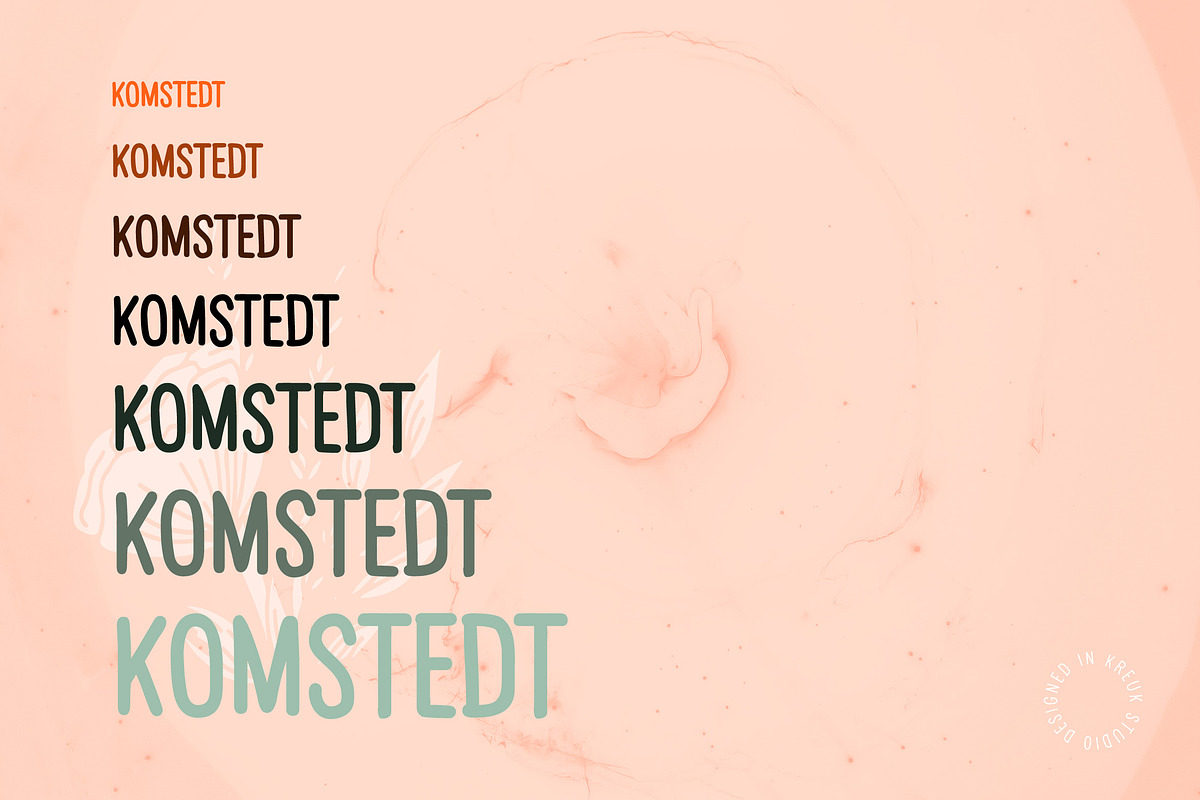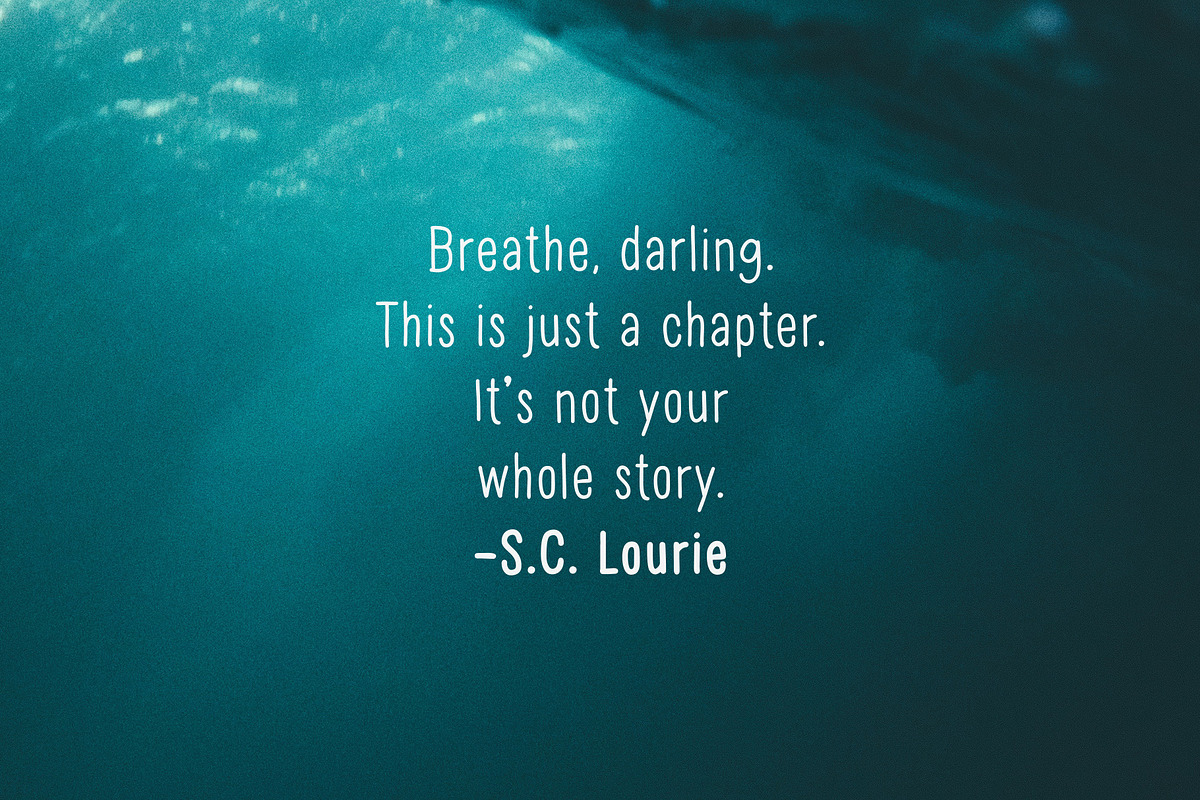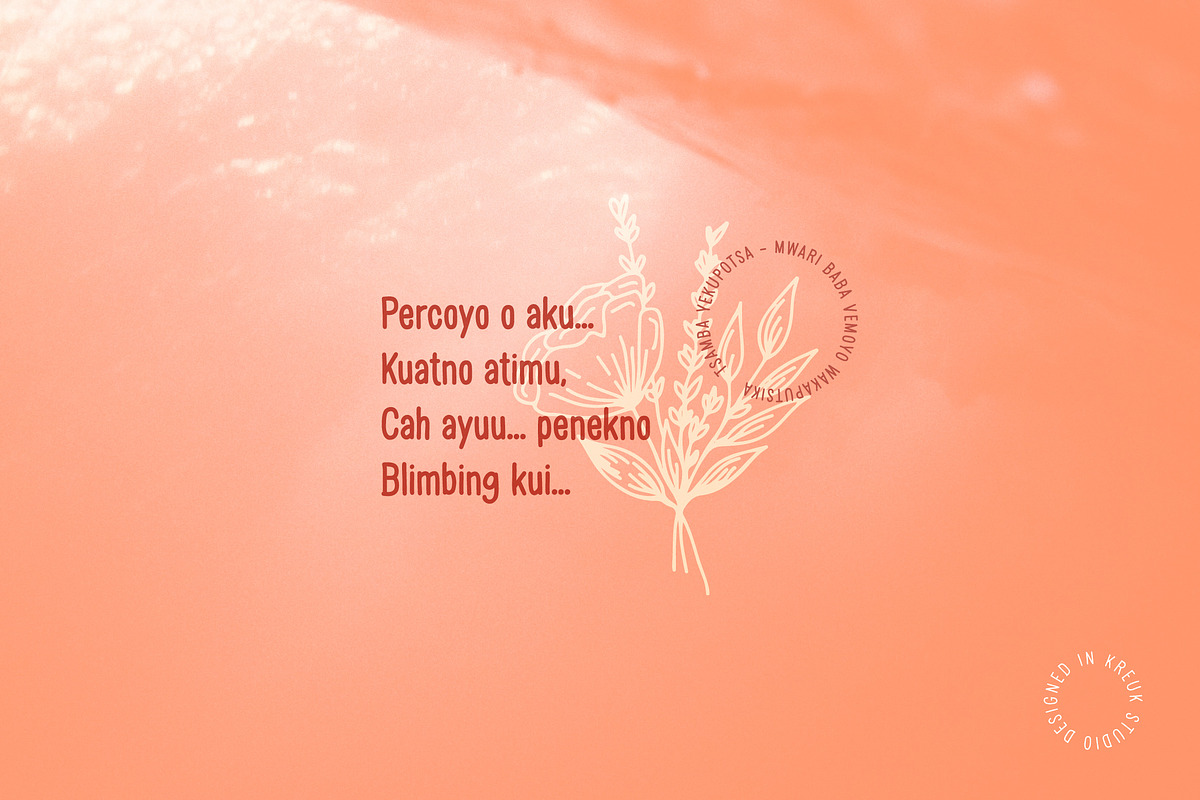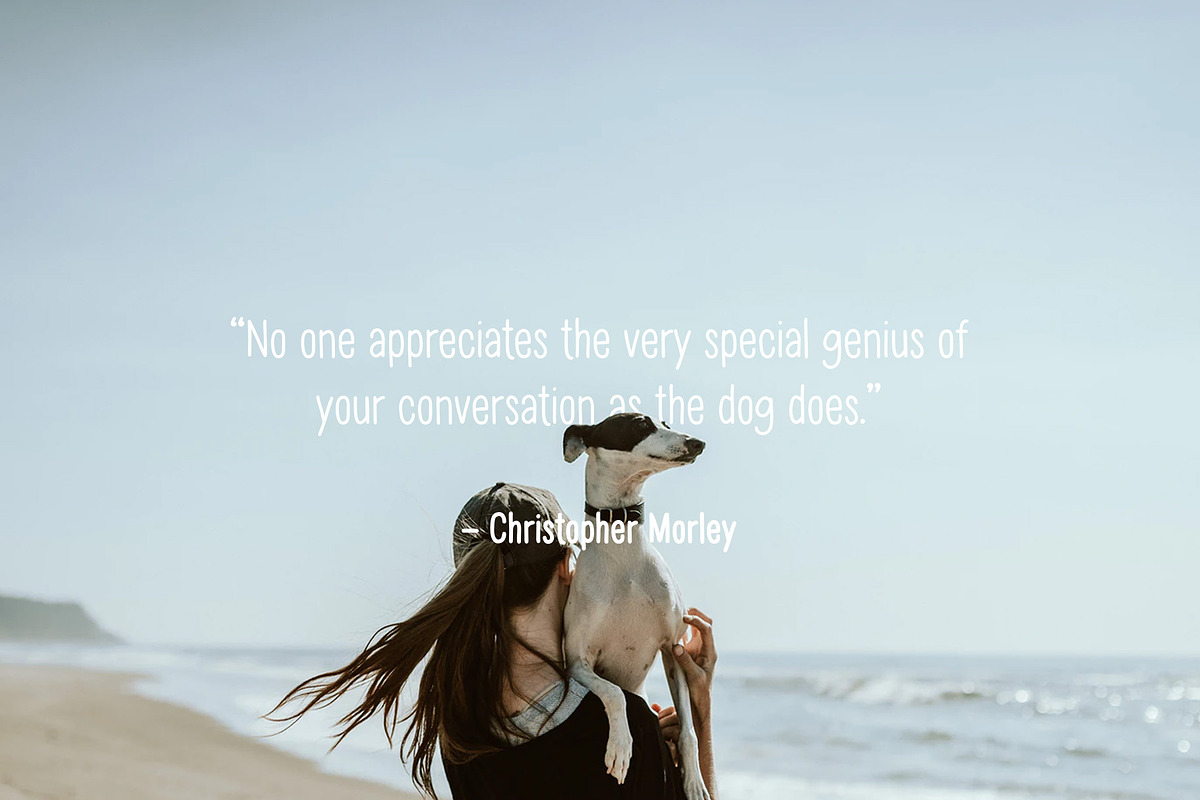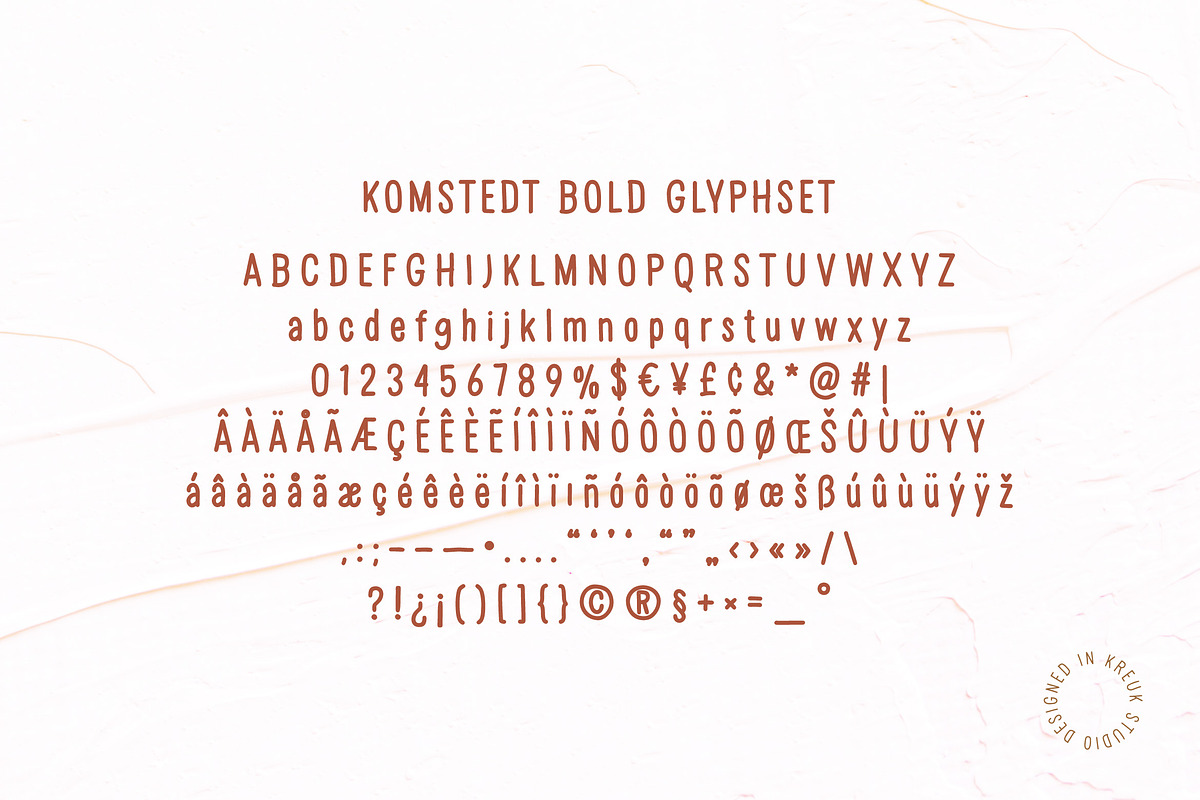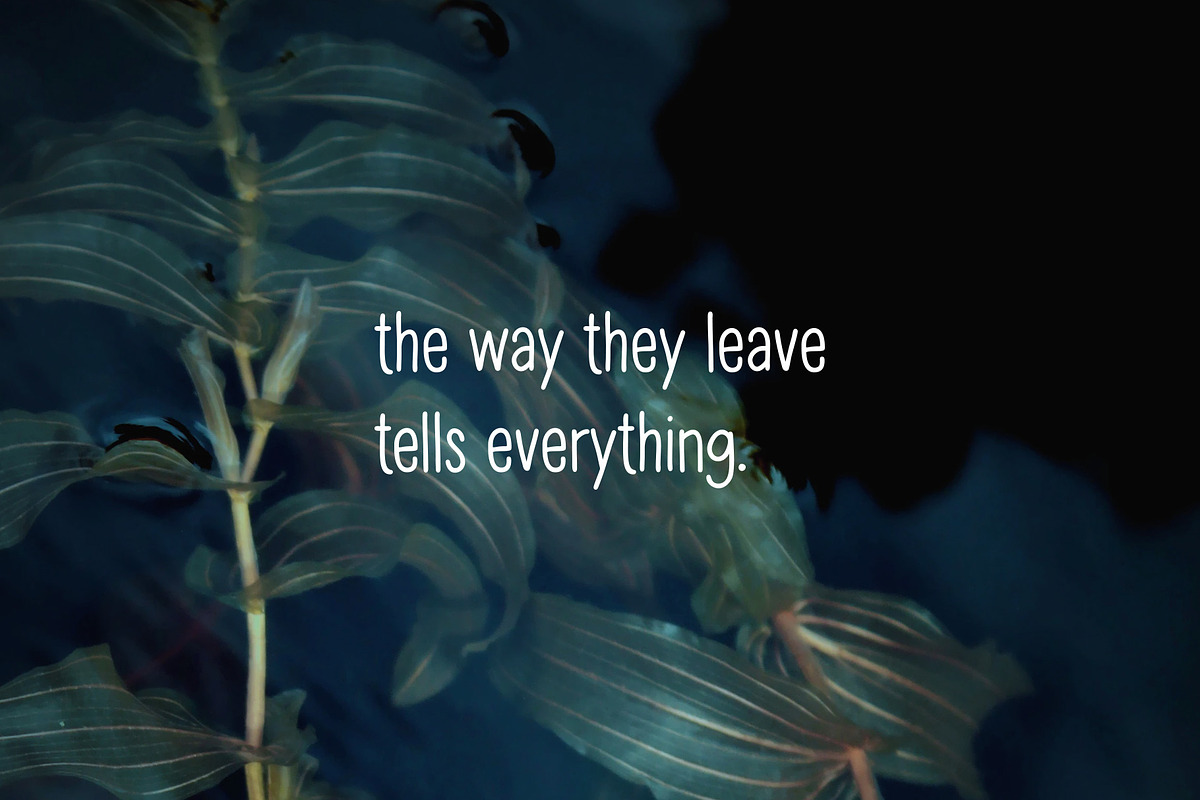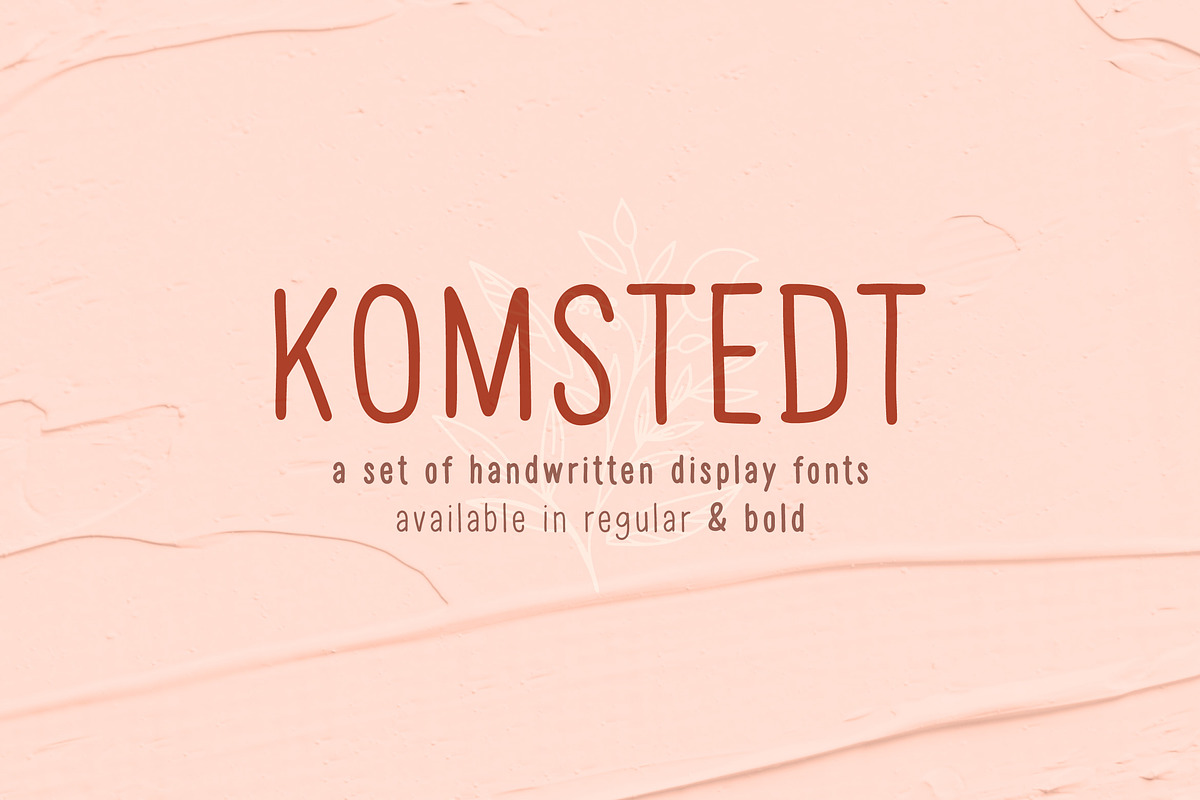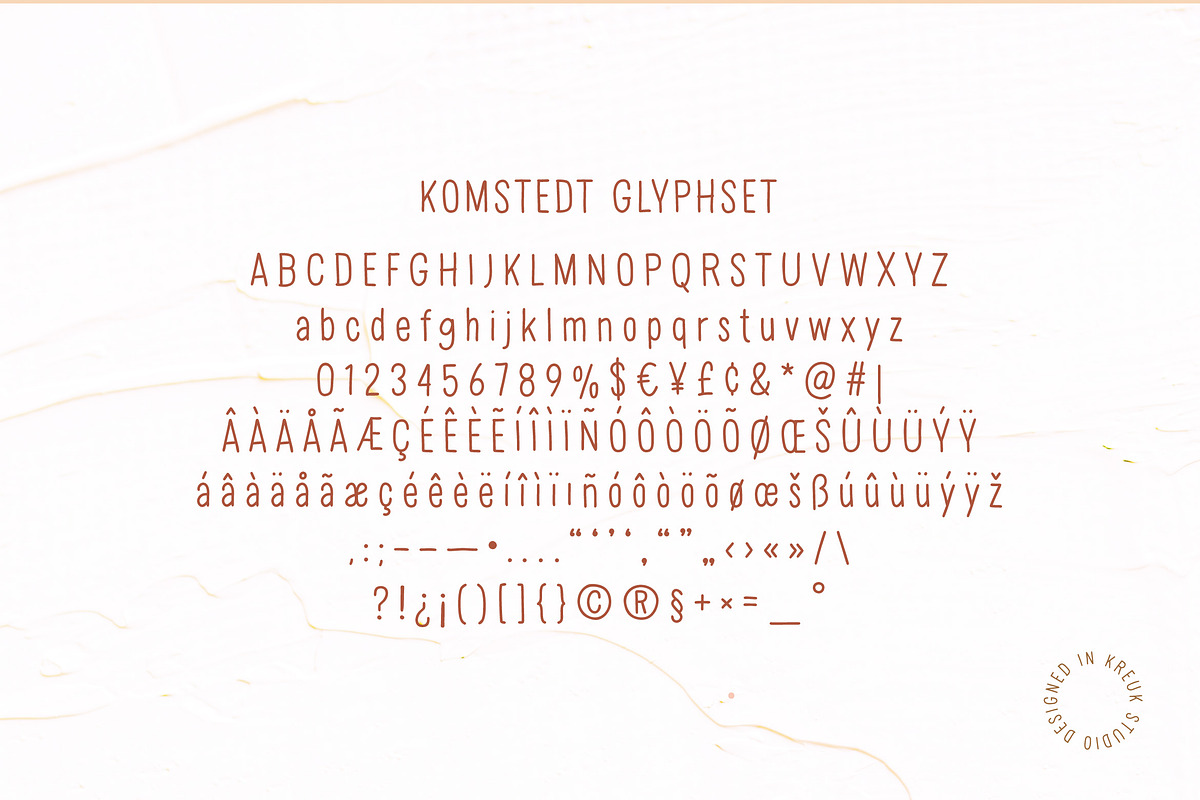
Komstedt Hands
Komstedt Hands is handwritten display typeface with smooth fun & nostalgic feeling. Available in Regular & Bold weights. With supports of multilingual glyphs. Komstedt Hands will be perfect for headline, greeting cards, logos, quotes posts or anything.